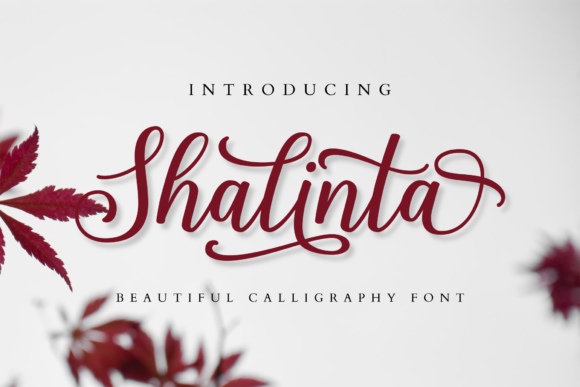
Shalinta Font
This graceful typeface is perfect for elegant wedding invitations, luxury beauty brand packaging, sophisticated fashion labels, upscale spa materials, premium greeting cards, refined personal branding, boutique hotel signage, and exclusive lifestyle marketing. Shalinta Font delivers refined femininity in applications where delicate sophistication and romantic elegance are essential for creating intimate brand connections with discerning audiences.
What makes Shalinta Font so exciting is its exquisite balance of flowing elegance and contemporary sophistication. The font features beautifully crafted letterforms with gentle curves and refined details that capture the essence of feminine grace. Each character has been thoughtfully designed to maintain excellent legibility while expressing delicate beauty and romantic charm. The typeface's enchanting personality creates an atmosphere of luxury and personal attention, making it perfect for premium brands seeking to communicate intimacy, elegance, and exclusive quality through their visual identity.
The Shalinta Font includes versatile style options: Regular, Bold, Light, and Italic variations. This elegant collection allows designers to create layered compositions and establish sophisticated typographic treatments that capture romantic and refined moods. Each style maintains the font's inherent grace while providing different emphasis levels for various luxury applications and feminine design themes.
This exquisite typeface represents the perfect choice for designers who understand the power of delicate sophistication in creating authentic luxury brand experiences that celebrate feminine elegance.